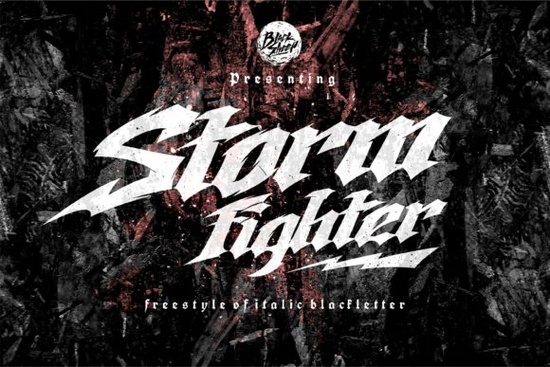
If you’ve been searching for a font that carries weight, grit, and a touch of the dramatic, Storm Fighter Font might be exactly what your next project needs. It’s not just another blackletter typeface it leans into freestyle gothic lettering with sharp edges and an unmistakable presence. Whether you’re designing a horror-themed poster, a tattoo stencil, or branding for a gritty action game, this font adapts without losing its edge.
You’ll find it especially useful if your work thrives on atmosphere think dark fantasy book covers, metal band merch, or even packaging for artisanal spirits with a rebellious twist. The strokes feel hand-crafted but remain legible at larger sizes, which is rare in fonts this stylized. And yes, it works beautifully for logos, too.
What kinds of projects does Storm Fighter work best for?
This isn’t a one-trick font. Its versatility shows up across industries and formats:
- T-shirt and hoodie designs especially for streetwear, gaming merch, or music-related apparel.
- Game and comic book covers where bold titles need to grab attention instantly.
- Tattoo flash sheets or custom lettering the organic flow suits skin art surprisingly well.
- Product labels and packaging craft beer, hot sauce, candles… anything that wants to look bold and unapologetic.
- Social media graphics and YouTube thumbnails stands out even at small sizes when used for headlines.
It’s also worth noting how well it pairs with simpler sans-serifs. Try using Storm Fighter for your headline or logo, then switch to something clean like Montserrat or Lato for body text. The contrast gives your design breathing room while keeping the mood intact.
One tip: avoid using it for long paragraphs. Blackletter styles like this are meant to command attention in short bursts headlines, taglines, or single words. Stretching it across multiple lines can overwhelm the viewer and reduce readability.
How does it compare to other gothic fonts?
Many gothic fonts stick rigidly to historical forms, which can feel stiff or overly ornate. Storm Fighter loosens those rules just enough to feel modern without losing its roots. The curves have attitude. The serifs bite. There’s movement in the letters, like they were drawn mid-battle.
If you’ve tried fonts like Blackletter Queen or Grimoire and found them either too delicate or too chaotic, this one strikes a middle ground. It’s structured enough for commercial use but wild enough to stand out in a crowded feed.
Fonts like Storm Fighter aren’t just tools they’re tone-setters. Use them where you want to whisper “danger,” “legend,” or “unstoppable.” And if that’s the vibe you’re going for, you’re already halfway there.